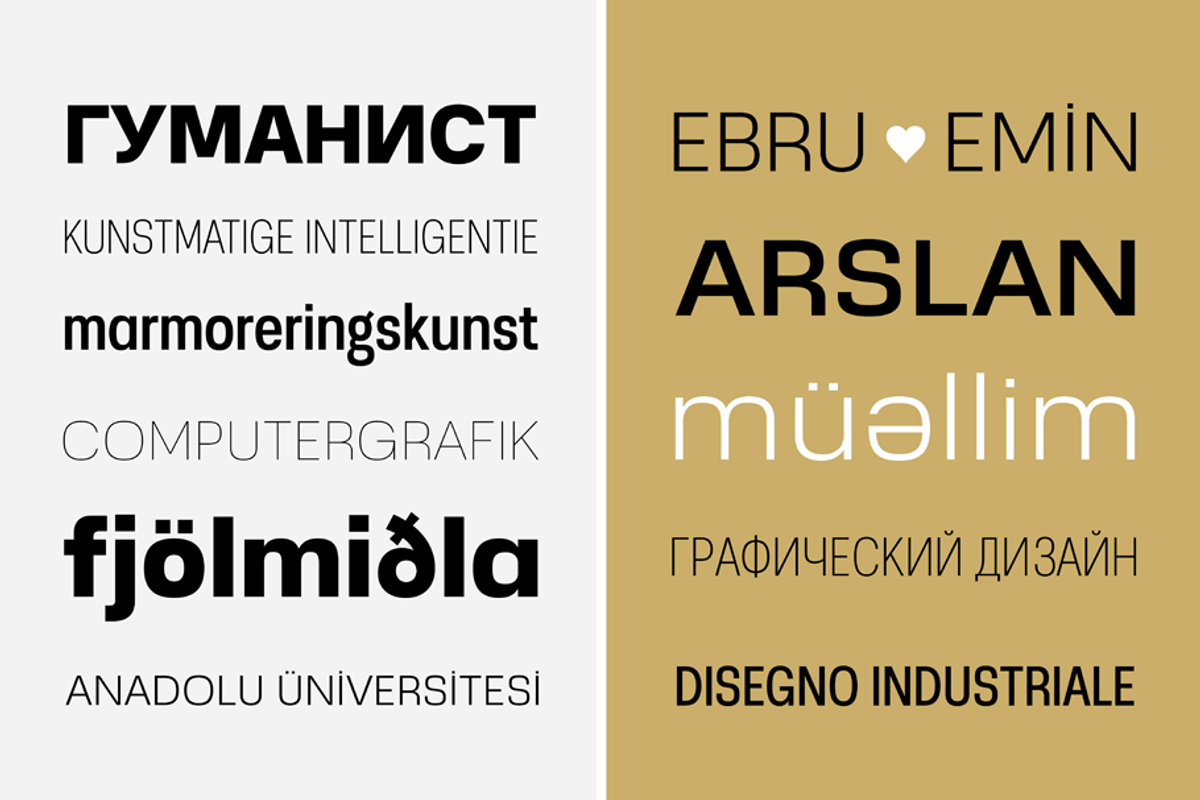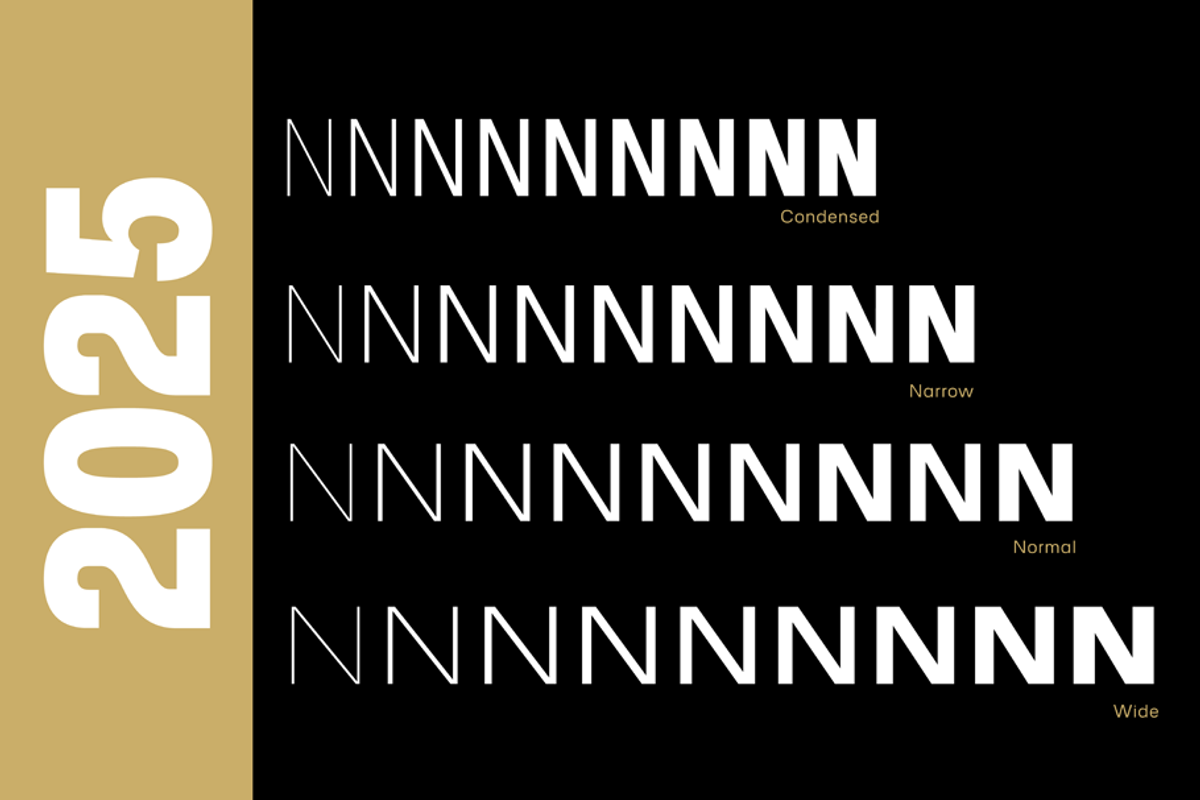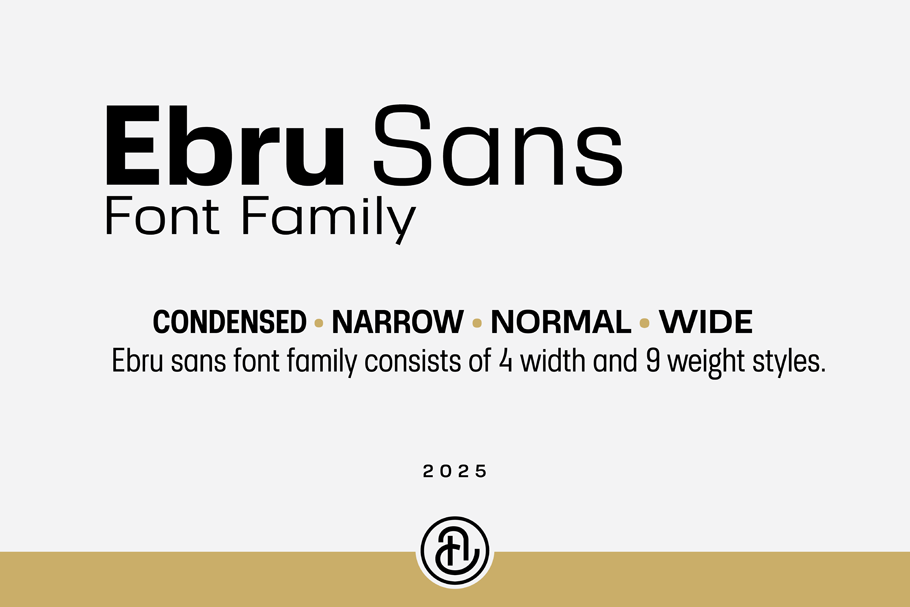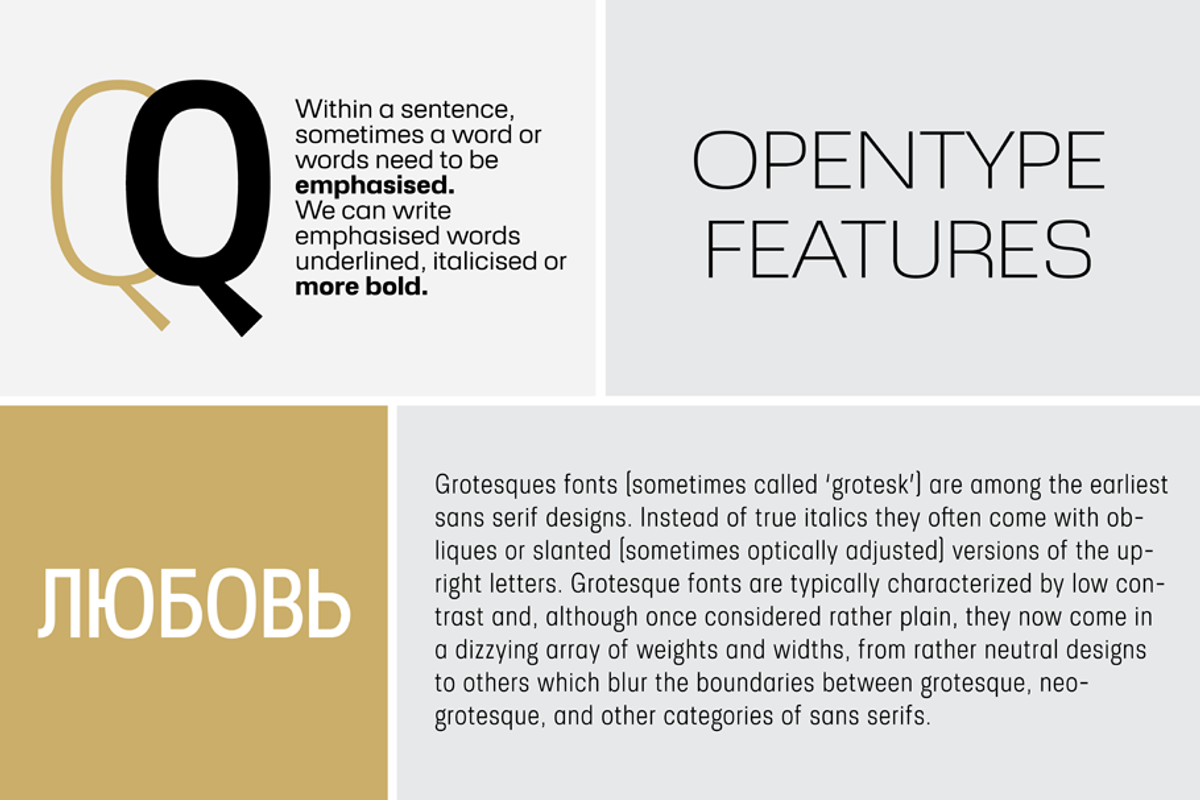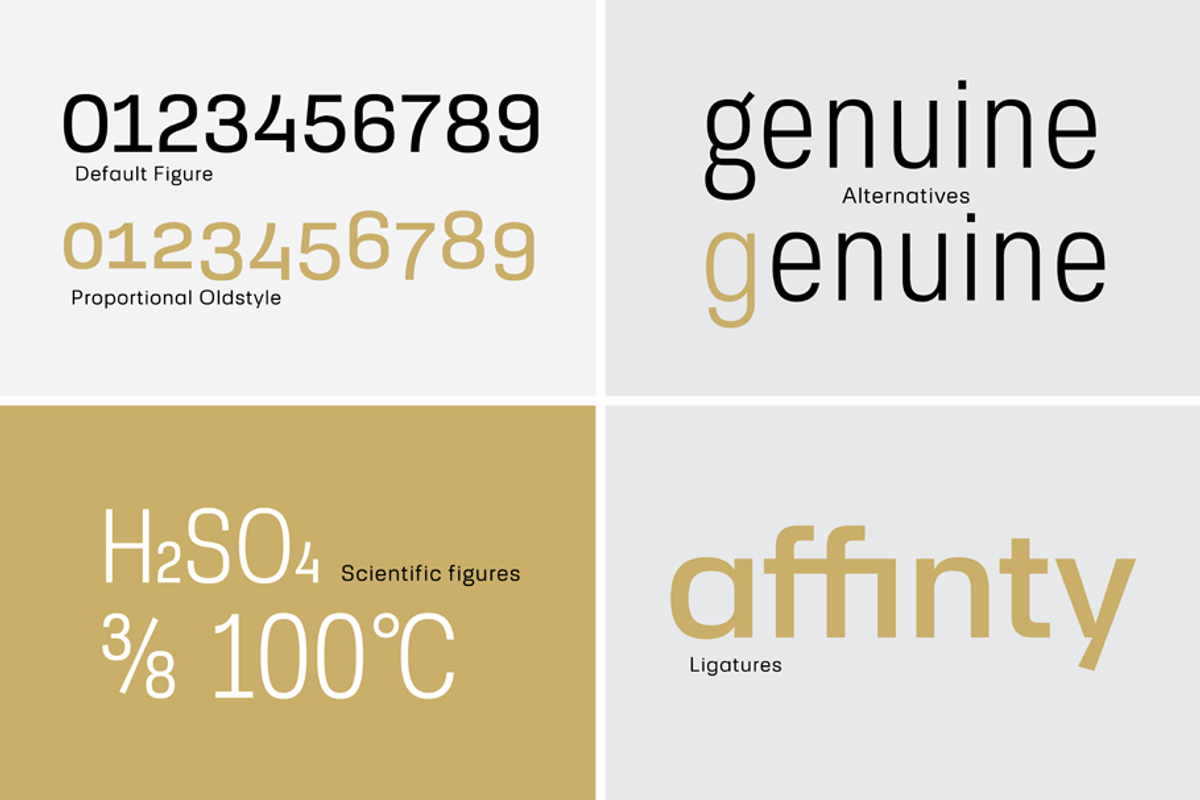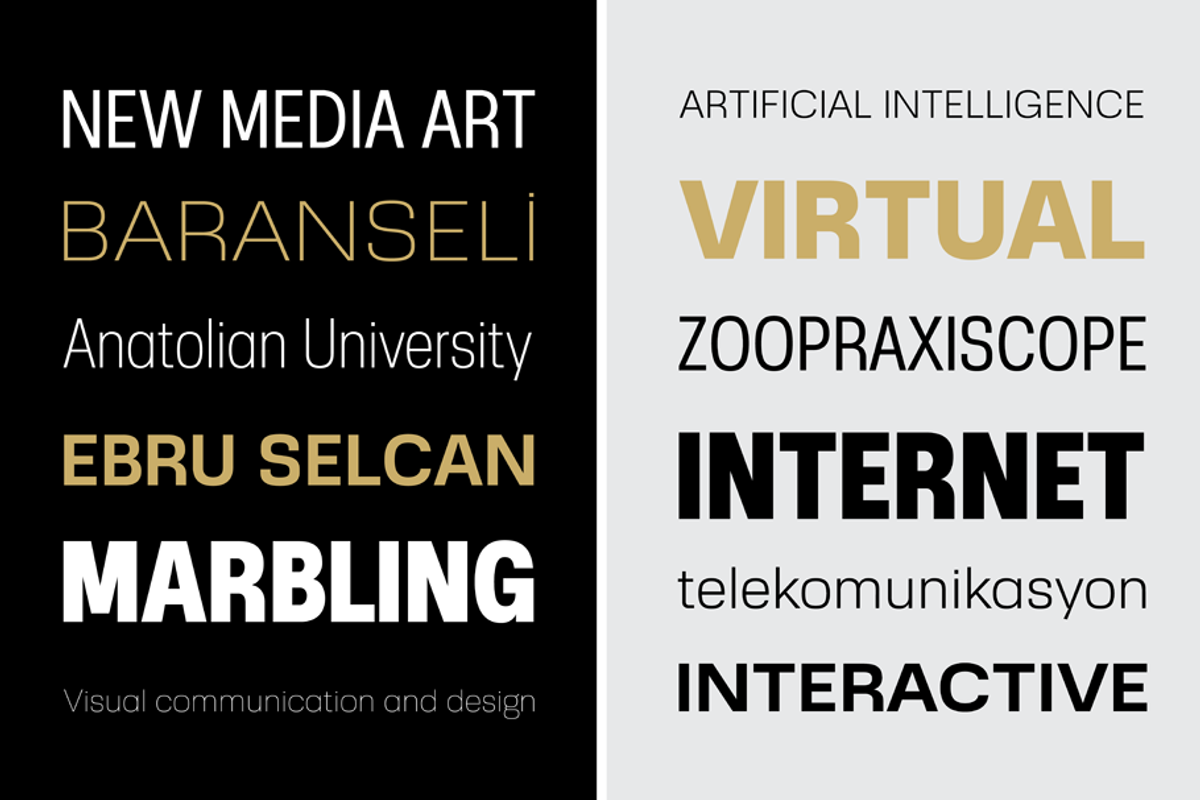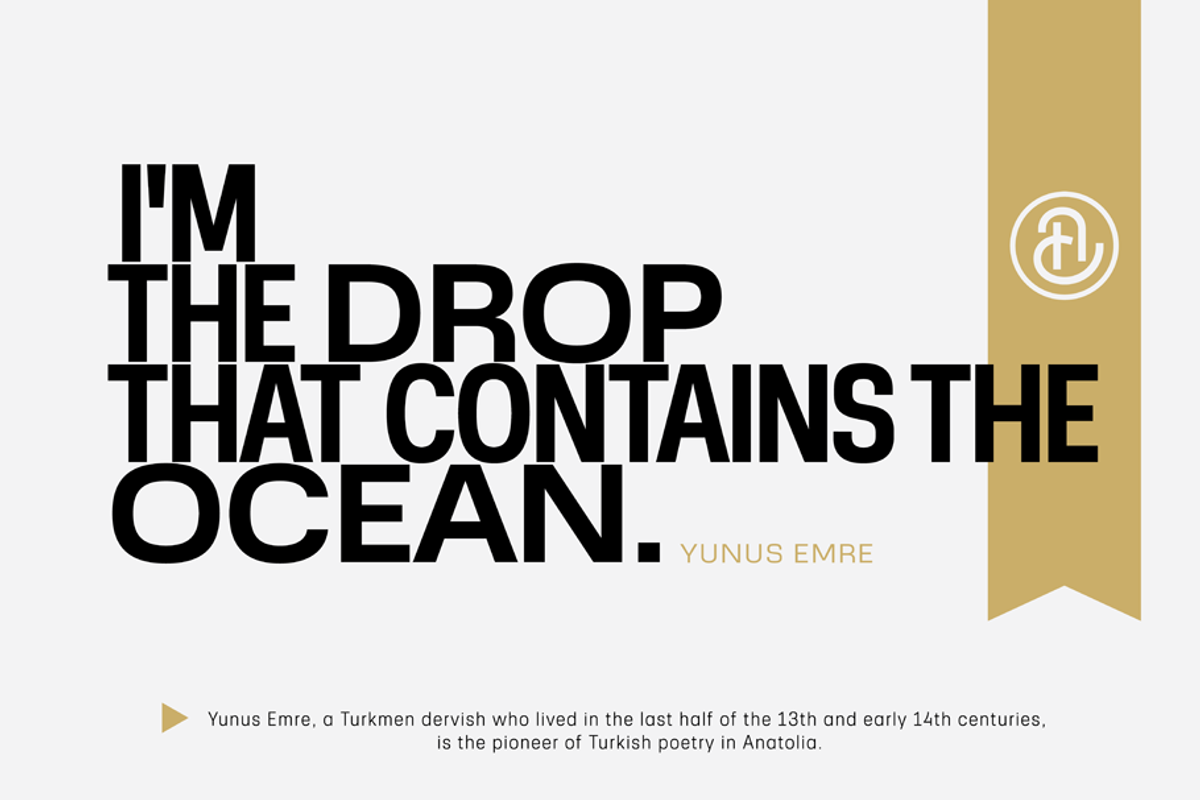
Ebru Sans Font Family
Ebru Sans Font family consists of 4 widths and 9 weights. There are no italic styles in this font family. This font family is designed to create impressive and wonderful posters, legible texts. It can also be an excellent choice for use in all kinds of graphic design jobs. Ebru is a woman's name. It is a word of Persian origin and means cloud or eyebrow. It is also the name of an ornamental art made with paints on water and then transferred to surfaces such as paper. I am honoured to name the Ebru sans font family after my beloved university lecturer Ebru Baranseli Arslan.